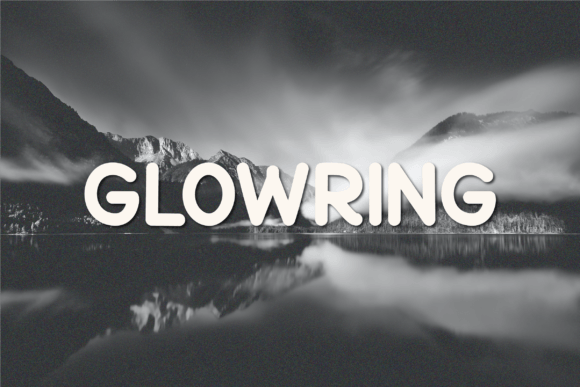
Introducing the Glowring Font — A Playful Sans Serif Adventure
In a world filled with conventional fonts, the Glowring Font bursts onto the scene like a breath of fresh air, its quirky personality radiating a sense of fun and playfulness. Crafted meticulously by the font foundry Becraft, Glowring is an all-caps sans serif masterpiece that captivates with its unique charm, ready to transform your creative projects into exhilarating visual experiences.
From the moment you lay your eyes on Glowring, you'll be drawn into its captivating aura. Its rounded edges and cheerful curves dance across the page, exuding a sense of whimsy and lightheartedness. Whether you're a seasoned designer or just starting your creative journey, Glowring is the perfect companion to unleash your imagination and craft designs that speak to the heart.
Dive into the myriad possibilities that Glowring presents. Whether you're creating eye-catching logos, vibrant social media graphics, or heartfelt greeting cards, Glowring effortlessly adapts to your vision, adding a touch of playfulness and delight to every design. Let your creativity soar as you explore the boundless applications of this versatile font.
With Glowring, you'll discover a font that not only captivates but also resonates with your audience, leaving a lasting impression. Its friendly demeanor invites viewers to engage with your designs, creating a connection that goes beyond mere aesthetics. This font has the inherent ability to transform ordinary words into extraordinary expressions, turning your designs into captivating stories that speak directly to the hearts of your audience.
So why settle for ordinary fonts when you can embark on an extraordinary typographic adventure with Glowring? Its playful nature and boundless versatility make it the perfect font for those who dare to stand out, to inject a spark of joy into their designs, and to create visual masterpieces that resonate with audiences. Embrace the Glowring Font today and let your creativity shine brighter than ever before!